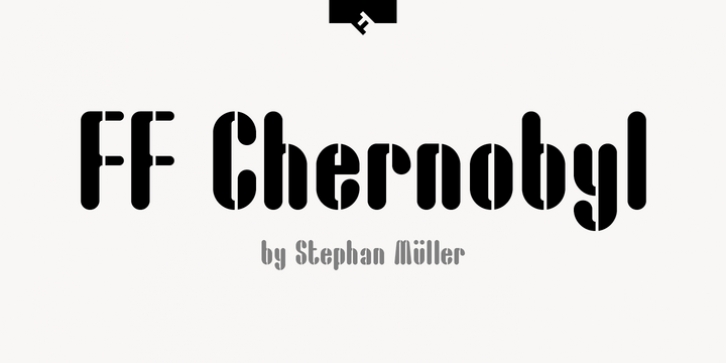
Swiss type designer Stephan Müller created this display FontFont in 1999.
The font is ideally suited for advertising and packaging, festive occasions, logo, branding and creative industries, music and nightlife as well as poster and billboards.
FF Chernobyl provides advanced typographical support with features such as ligatures, alternate characters, case-sensitive forms, and stylistic alternates.
It comes with tabular lining figures.